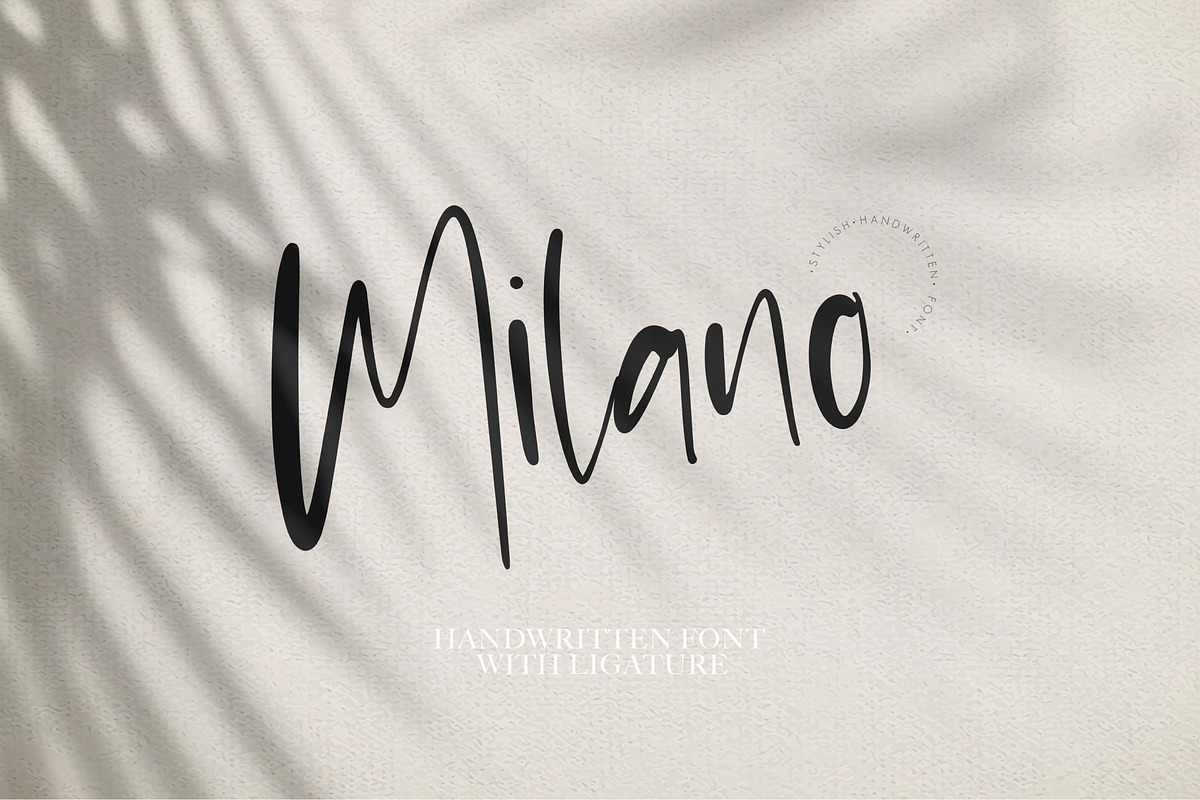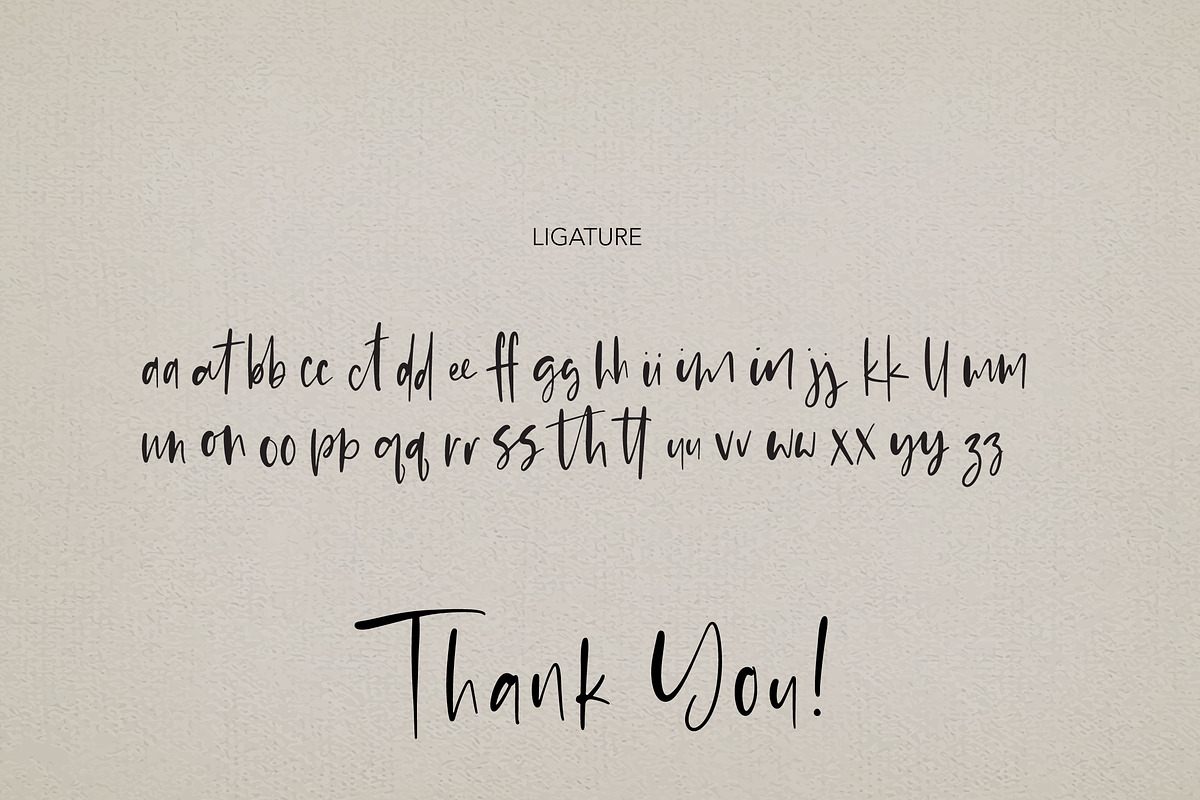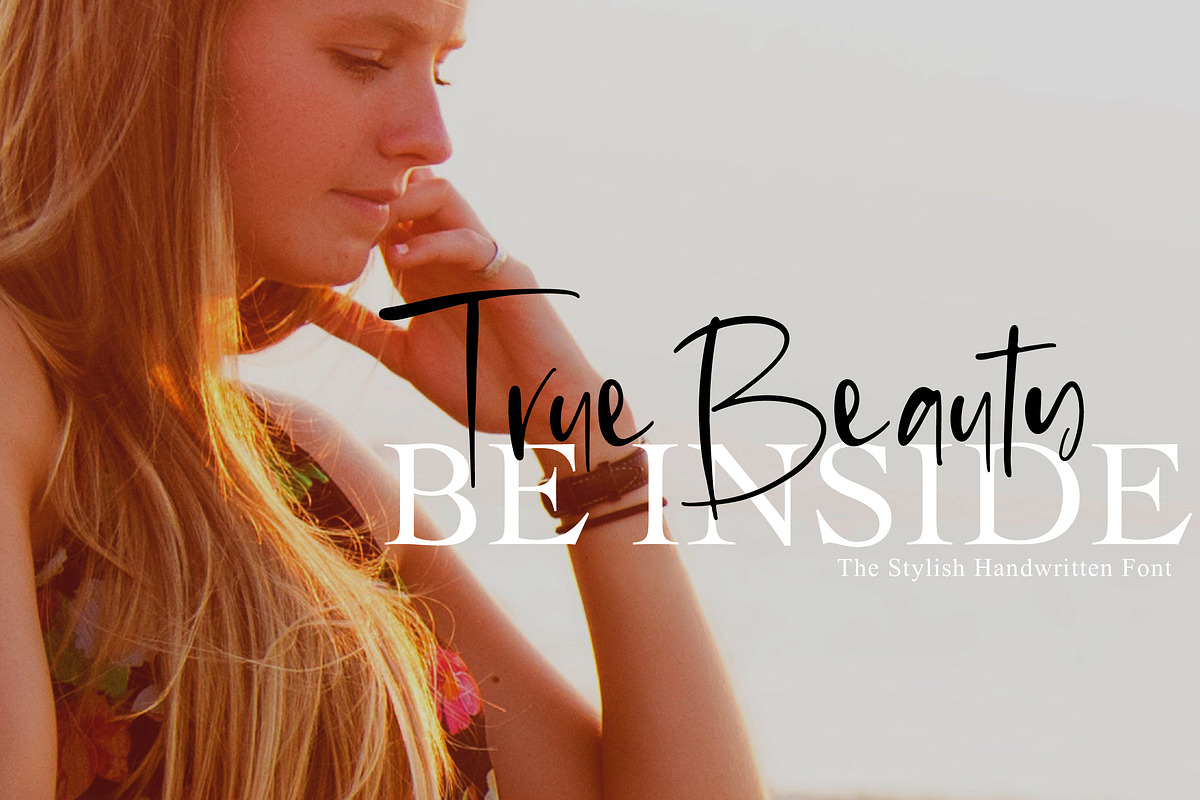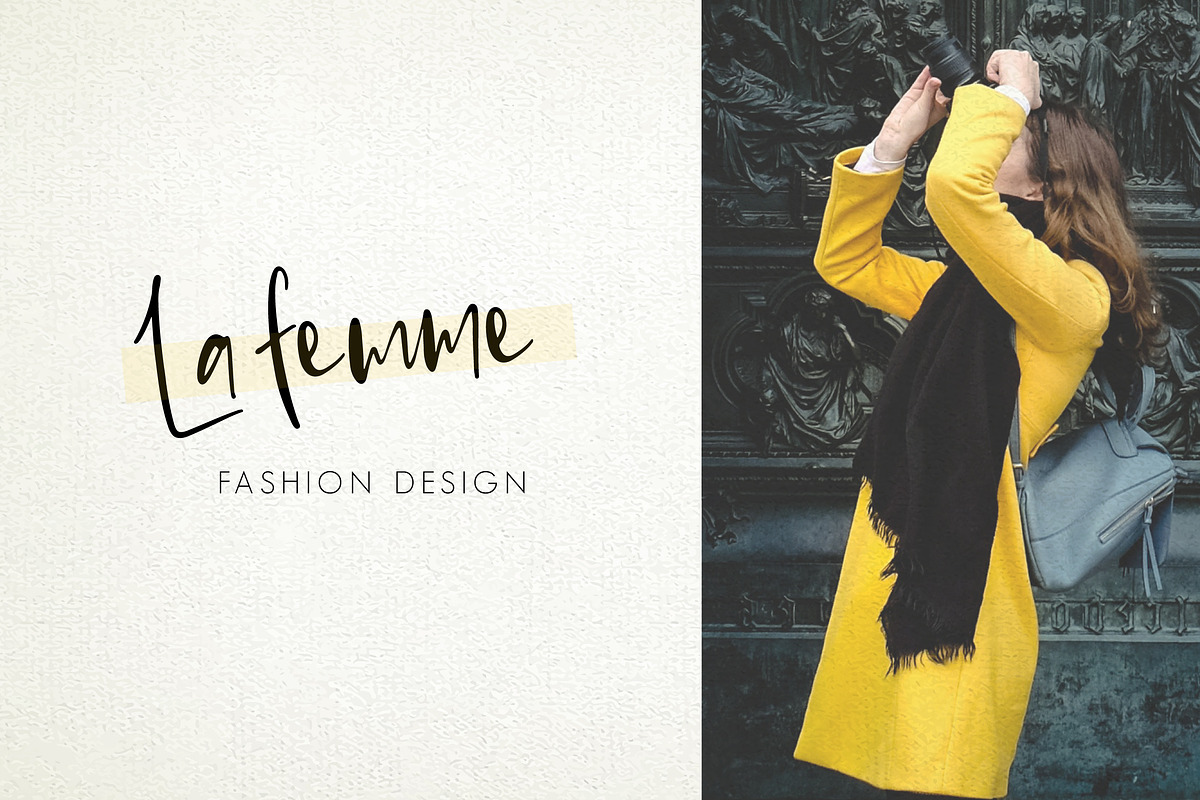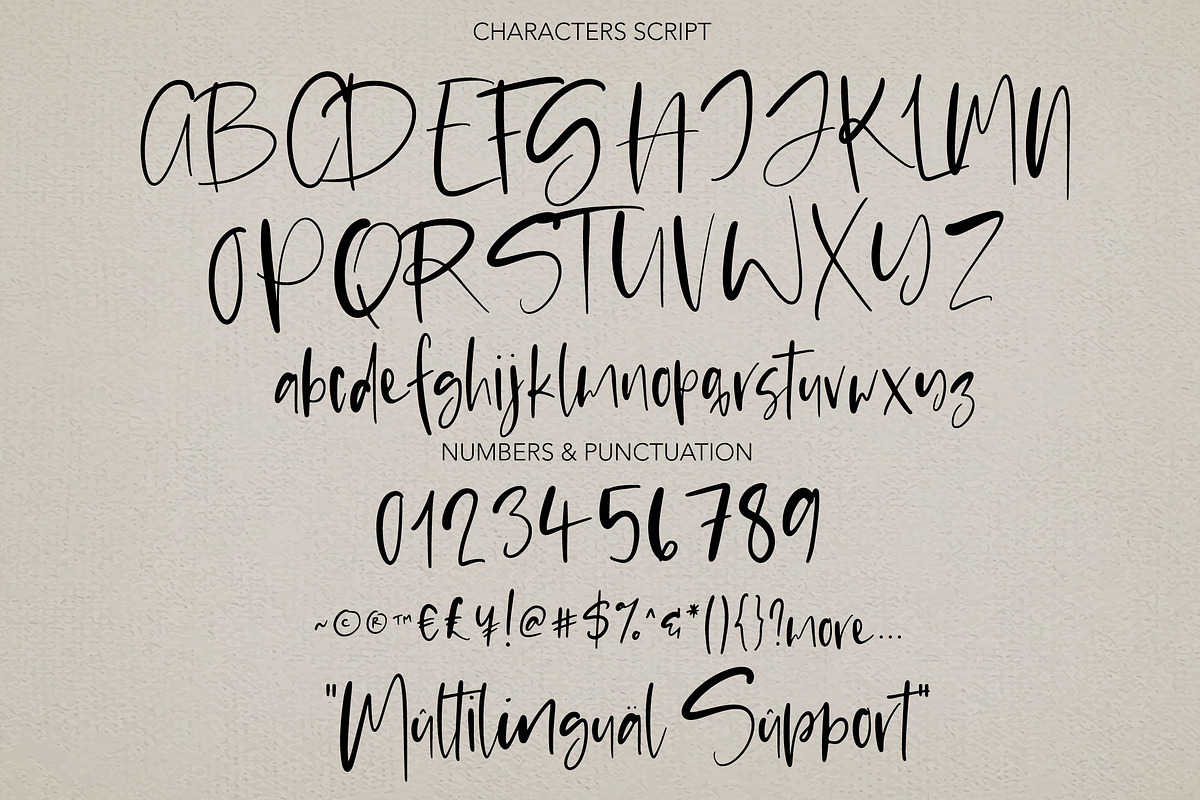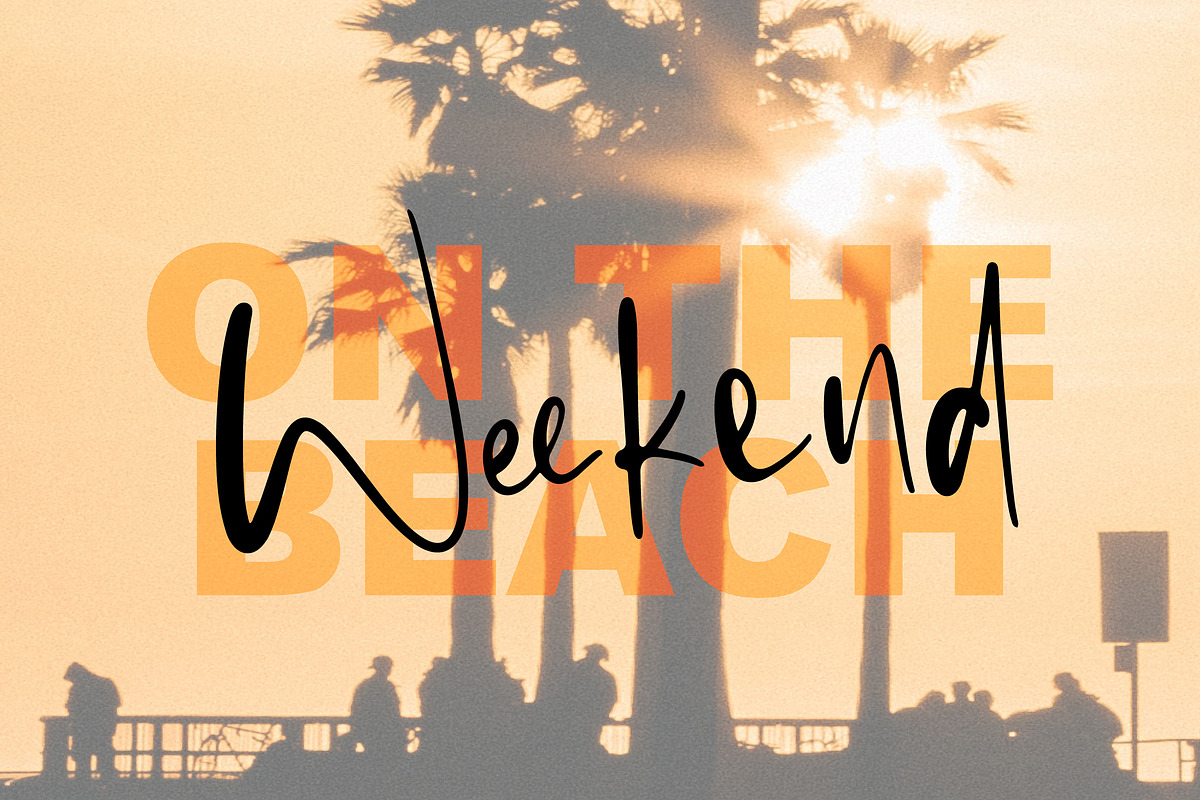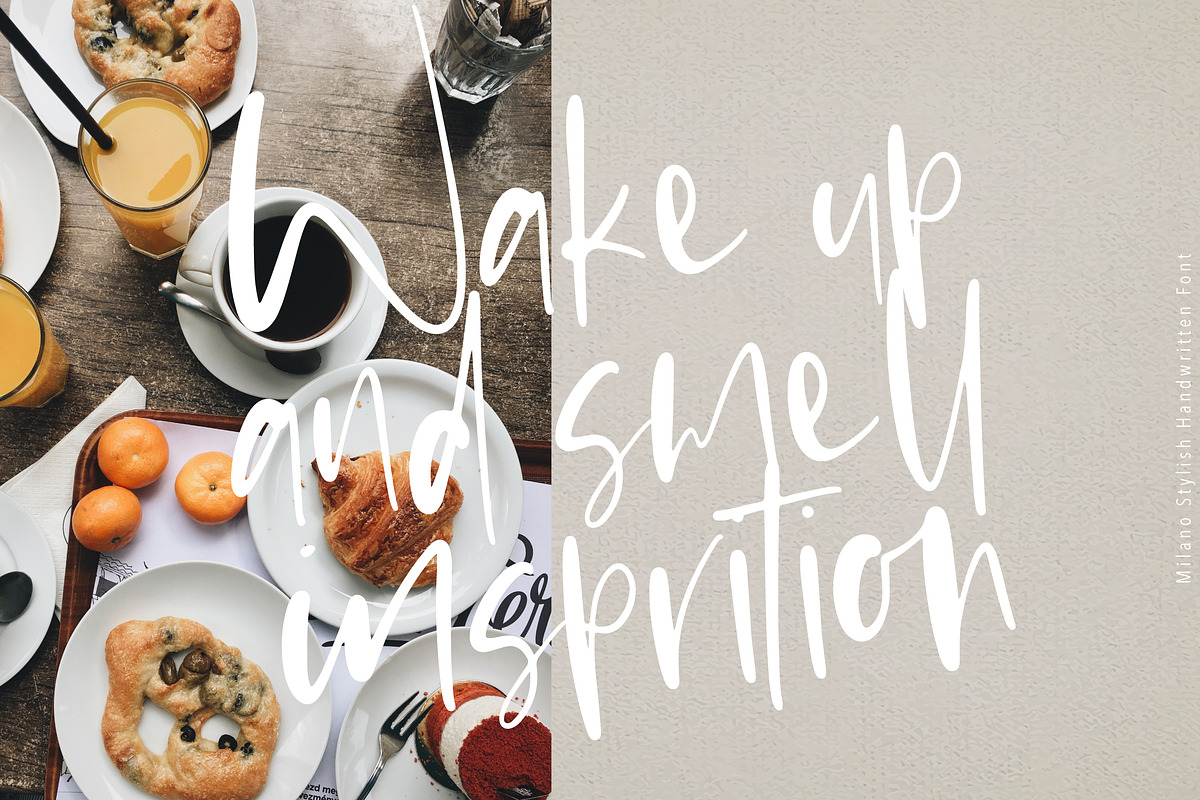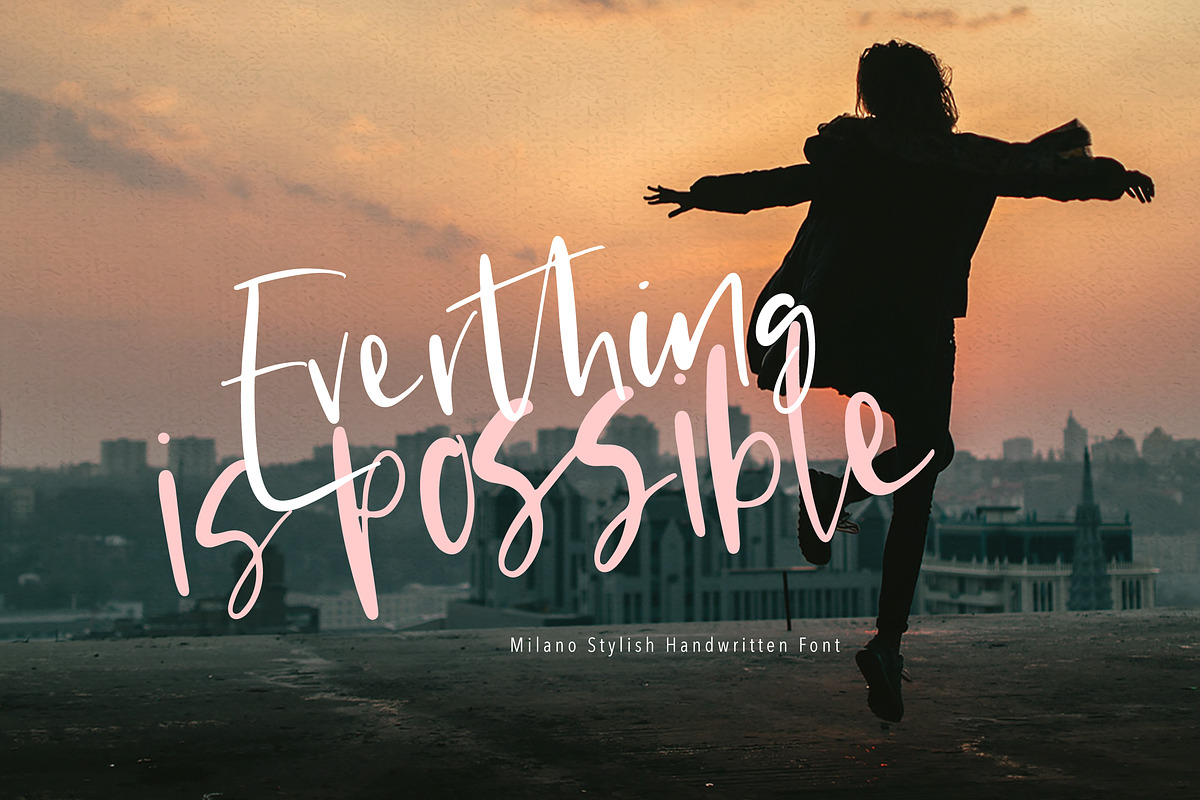
Milano | Stylist Font
I just finished my new font. Milano It's perfect for your project.
This handwritten font is ideal for branding and decorates your any project.
Every single letter has been creative carefully. This font is perfect for making your set of invitations, Brand, blog posts, DIY projects, greeting cards, labels, quotes, posters, wall art, branding, packaging, websites, photo & photography overlays, signs, window art, scrapbooking, tags and so much more!
multilingual support for the following languages: Cornish, Danish, Dutch, English, Estonian, Faroese, Filipino, Finnish, French, Galician, German, Icelandic, Indonesian, Irish, Italian, Norwegian Bokmål, Norwegian Nynorsk, Portuguese, Spanish, Swahili, Swedish, Swiss German.